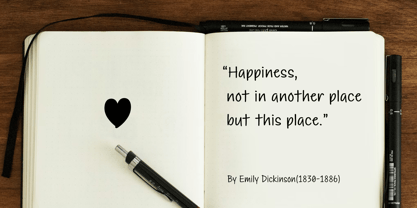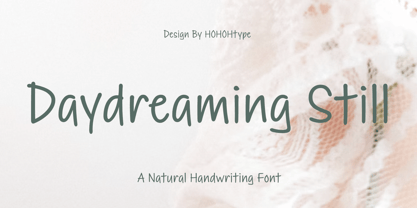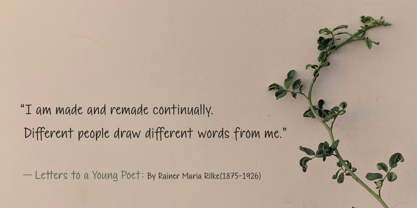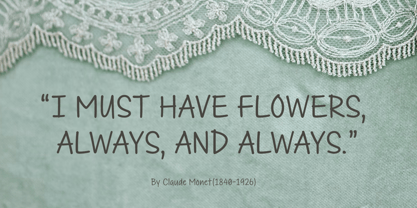
Daydreaming Still
by HOHOHtype
The Daydreaming Still Font Family was designed by Saebom Lee and published by HOHOHtype. Daydreaming Still contains 1 styles.
‘Daydreaming’ is a natural handwriting font created to capture calm, unhurried moments. Its relaxed rhythm and organic curves give your words a warm, approachable voice while still keeping the layout clean and readable. Designed to feel personal yet versatile, it works beautifully across branding, packaging, quotes, social media graphics, invitations, and editorial designs. Whether you are building a gentle lifestyle brand or adding a human touch to modern visuals, Daydreaming brings softness, clarity, and quiet charm to every composition.